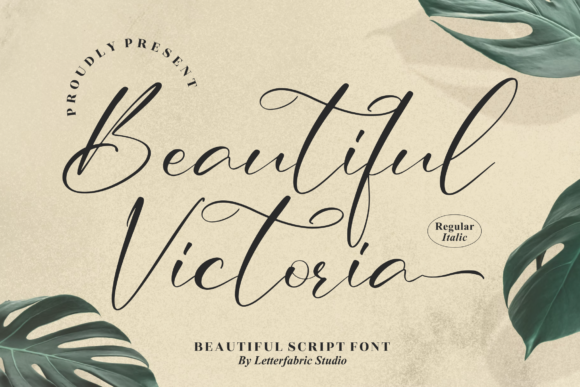
The Perfect Match for Your Creative Vision
Have you ever been brainstorming a new project, and suddenly, the perfect idea strikes? You envision a beautiful, hand-drawn feel that transports your audience to a world of whimsy and wonder. That’s where the Beautiful Victoria Font comes in – a lovely script font that brings your most creative ideas to life.
With its charming, playful characters that seem to dance along the baseline, the Beautiful Victoria Font is the perfect addition to your next design project. Whether you’re a seasoned designer or just starting out, this font is a valuable tool in your toolkit. Its PUA encoding means you can access all glyphs and swashes with ease, giving you the freedom to express yourself in a way that’s uniquely yours.
Key Features of Beautiful Victoria Font
- Unique Characteristics: This font features intricate details, ornate flourishes, and a classic Victorian-era aesthetic, making it perfect for formal invitations, wedding stationery, and luxury branding.
- Font Weight: The font’s weight is optimized for legibility, with a balance between elegance and readability, ensuring that your text remains clear and easy to read.
Designer Review: Beautiful Victoria Font
Overall, I’m impressed with the Beautiful Victoria font, but as with any design, there are pros and cons.
- ✨ Elegant and sophisticated look: This font is perfect for luxury brands, fashion labels, and high-end businesses that want to convey refinement and class.
- ✨ Versatile: Beautiful Victoria can be used in a variety of contexts, from advertising and marketing materials to packaging and website design.
- ✨ High legibility: The font is easy to read, even at small sizes, making it suitable for body text and headings alike.
- ⚠️ Limited character set: Beautiful Victoria may not have as many characters as other fonts, which could be a limitation for languages that require a wide character set.
- ⚠️ Not suitable for digital displays: The font may not display well on digital screens, particularly at small sizes, due to its high level of detail.
I would recommend Beautiful Victoria for projects that require a touch of elegance and sophistication. While it may have some limitations, its unique look and versatility make it a great addition to any designer’s toolkit.
To get the most out of the Beautiful Victoria font, use it for headings and titles, and pair it with a clean and simple font for body text. You can also experiment with different font sizes and colors to create a visually appealing design.
The Beautiful Victoria font is perfect for:
Alternatives to Beautiful Victoria Font
Alice Script
Alice Script is a beautiful, elegant script font perfect for adding a touch of sophistication to designs. It is ideal for use in wedding invitations, branding, and other high-end projects. Unlike Beautiful Victoria Font, Alice Script has a more delicate and refined feel, making it suitable for applications where a more subtle approach is needed.
Great Vibes is a modern script font that exudes a sense of playfulness and creativity. It is perfect for use in designs that require a fun and energetic feel, such as advertisements, social media graphics, and posters. While Beautiful Victoria Font has a more classic and traditional look, Great Vibes offers a fresh and contemporary alternative.
Carolyna Pro is a elegant and sophisticated script font that is perfect for use in high-end designs. It has a more refined and polished feel compared to Beautiful Victoria Font, making it suitable for applications such as luxury branding, fashion, and fine art. Carolyna Pro also offers a range of styles and weights, allowing designers to customize their designs to suit their needs.